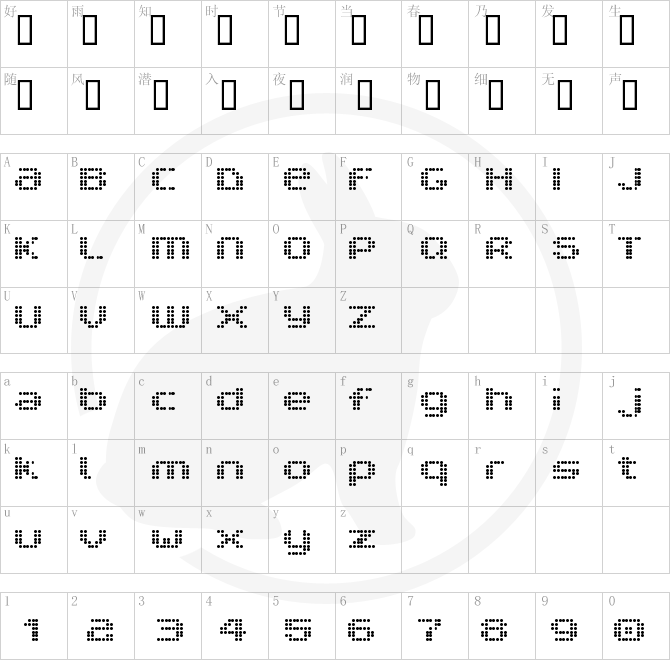
- Font Name:V5 Prophit
- Subfamily:Dot Prophit - Designed by Roberto Christen
V5-Prophit-Dot.ttf is a very beautiful artistic font, V5-Prophit-Dot.ttf is widely used in the design and printing of various books and pictures,V5-Prophit-Dot.ttf has a strong visual impact,V5-Prophit-Dot.ttf is a commonly used font in newspapers, magazines and books, and is used in posters, e-commerce Poster design, store design, logo design, font design and other fields.V5-Prophit-Dot.